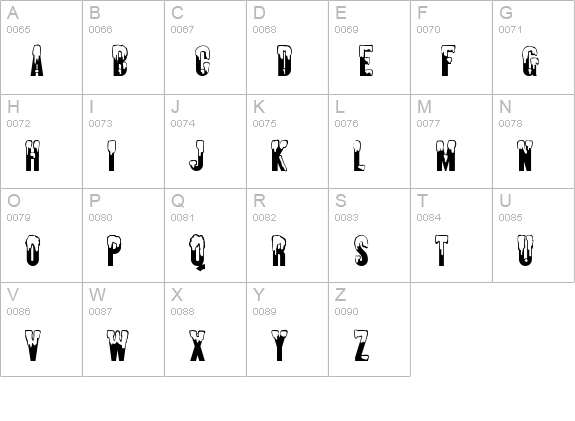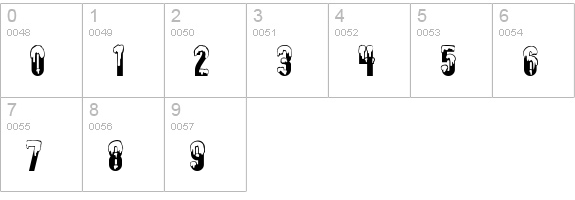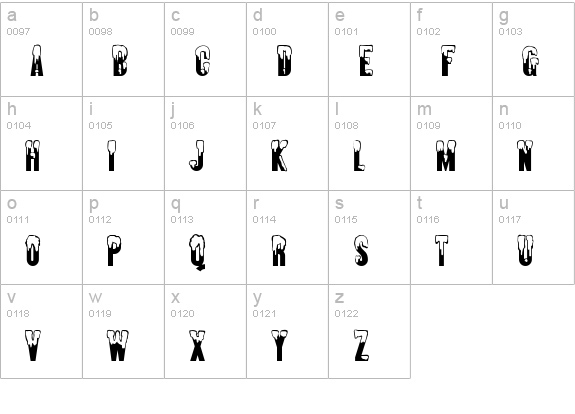
Almonte Snow Font Details
Almonte Snow font is a whimsical and charming typeface that captures the essence of winter magic. With its delicate snowflake-inspired details and elegant curves, this font exudes a sense of frosty beauty and seasonal cheer. Perfect for holiday-themed designs, greeting cards, invitations, and more, Almonte Snow font adds a touch of enchantment to any project. The best part? Almonte Snow font is available for free download at FontsMarket.com. Simply head over to the website and bring a touch of winter wonderland to your creative endeavors with this delightful font.